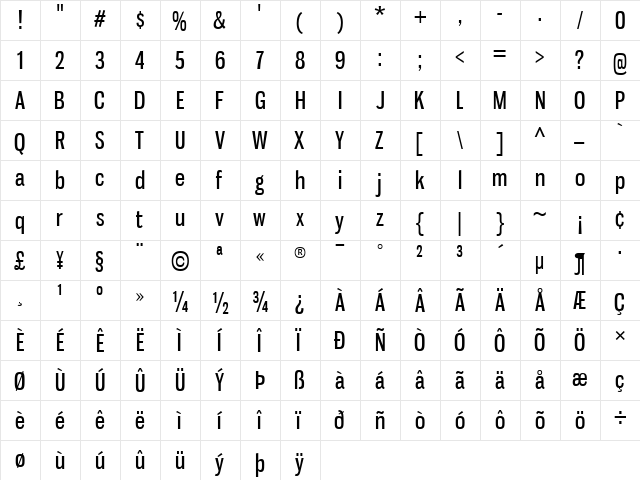
Gnuolane Free
Design Context for Gnuolane Typeface
Gnuolane offers clean, dependable letterforms without strong stylistic allegiance, making it a practical choice for designers who need flexibility.
Pro Tip: Pair Gnuolane with a font of contrasting weight or personality to build a more expressive typographic hierarchy.